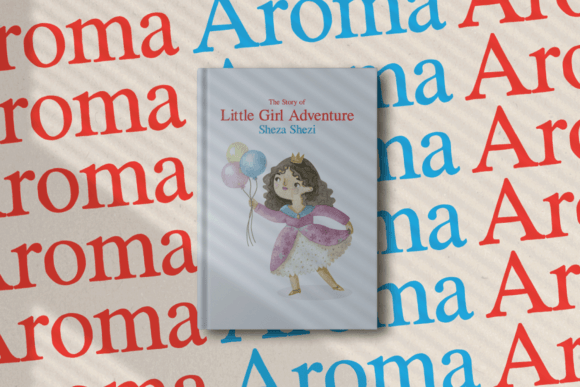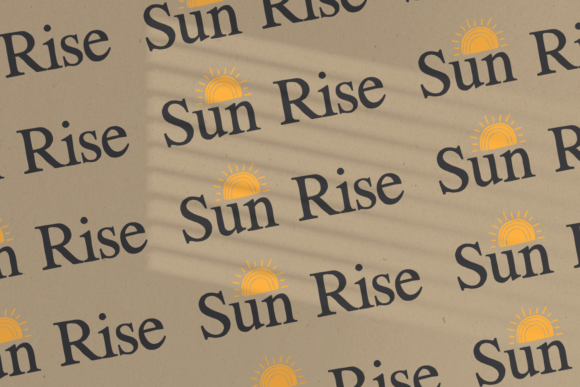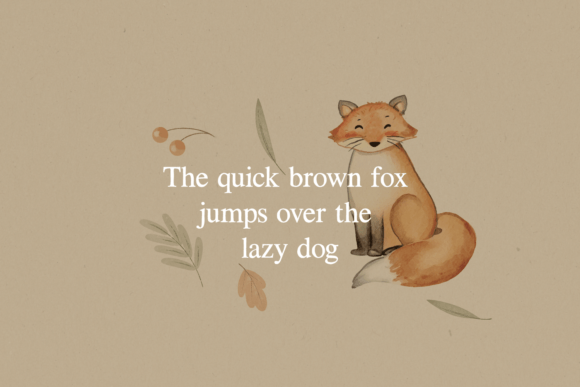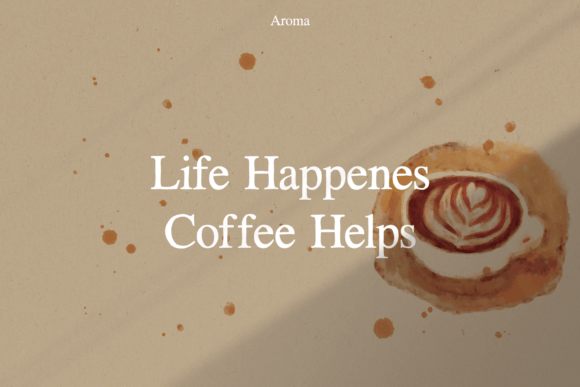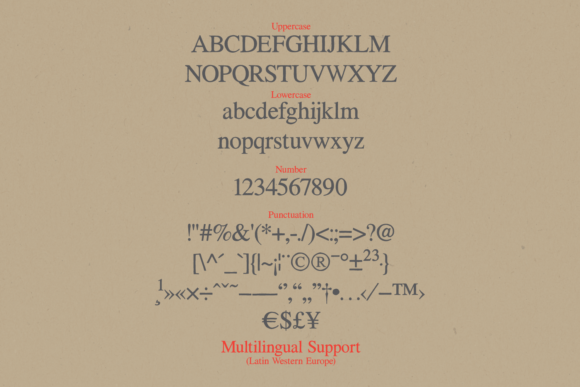
Aroma Font: A Masterful Blend of Classic Elegance and Modern Digital Artistry
In the realm of typography, few fonts manage to strike a balance between classic sophistication and modern digital flair. Aroma Font, however, achieves this delicate equilibrium with remarkable finesse. This typeface, crafted with digital pencil strokes, brings a contemporary twist to the traditional serif typography, drawing inspiration from the timeless New Time Roman font. The result is a digital masterpiece that not only pays homage to the past but also boldly steps into the future of typographic design.
The Genesis of Aroma Font
Aroma Font’s creation is a story of blending the old with the new, tradition with innovation. By leveraging digital pencil strokes, the designers aimed to infuse a sense of modernity and fluidity into a classic serif structure. This approach not only honors the heritage of serif typography but also explores the expressive potential of digital artistry. Each letterform in Aroma Font is a testament to the seamless integration of traditional elegance and digital precision.
Characteristics of Aroma Font
Aroma Font boasts a unique set of characteristics that set it apart in the world of digital typography. Some of its key features include:
• Digital Pencil Strokes: The use of digital pencil strokes gives Aroma Font a distinctive, hand-crafted feel that resonates with the authenticity of traditional typography.
• Classic Serif Inspiration: Drawing from the classic New Time Roman font, Aroma incorporates serif elements that evoke a sense of history and timelessness.
• Modern Fluidity: The digital creation process allows for a level of precision and fluidity that is hard to achieve with traditional methods, making Aroma Font highly versatile for various design applications.
• Elegant and Artistic: The blend of classic and modern elements results in a font that is not only elegant but also artistically expressive, making it suitable for projects that demand a high level of typographic sophistication.
Applications of Aroma Font
The versatility of Aroma Font makes it an excellent choice for a wide range of design projects. Whether you’re working on:
• Branding and Logo Design: Aroma Font’s unique blend of classic and modern elements can help create a distinctive brand identity that stands out in the market.
• Digital Media: From websites to mobile apps, Aroma Font’s digital pencil strokes and classic serif inspiration ensure readability and aesthetic appeal across various digital platforms.
• Print Design: For brochures, magazines, and books, Aroma Font offers a sophisticated and elegant typographic solution that enhances the overall design and readability.
• Packaging: The font’s artistic expression and elegance make it suitable for product packaging, adding a touch of sophistication to any product design.
Why Choose Aroma Font?
In a sea of digital fonts, Aroma Font stands out for several reasons:
• Unique Aesthetic: It offers a refreshing blend of modern digital artistry and classic typographic elegance.
• Versatility: Suitable for a wide range of design applications, from digital media to print and packaging.
• Timeless Appeal: The classic inspiration ensures that Aroma Font remains relevant and stylish for years to come.
Aroma Font is more than just a typeface; it’s a symphony of digital pencil strokes and classic serif elegance, crafted to elevate your typography to new heights. By embracing both the capabilities of the digital world and the richness of typographic history, Aroma Font offers designers and crafters a tool that is as versatile as it is beautiful. Whether you’re looking to make a bold statement or add a touch of sophistication to your design, Aroma Font is an excellent choice for anyone seeking to blend the best of both worlds in their typographic endeavors.